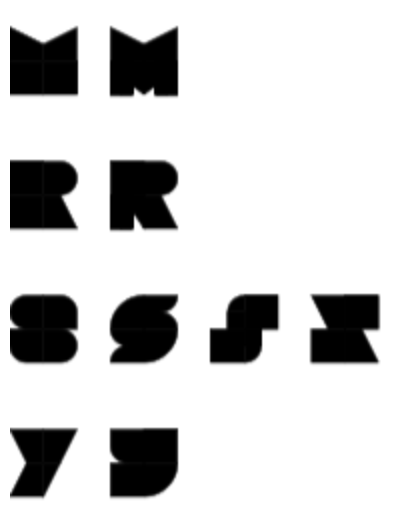
Is almost look like a Pac-Man font, the N used for the Novo19 logo, and uppercase C is rotated.
not quite, the pacman [C] has a 90 degree opening, but this one has a 45 degree opening
UPDATE: Added new alternates of M, R, S, and Y
Also we have some type of alternates: (Note: I delete the first "s" because is look ugly, due to the image.)